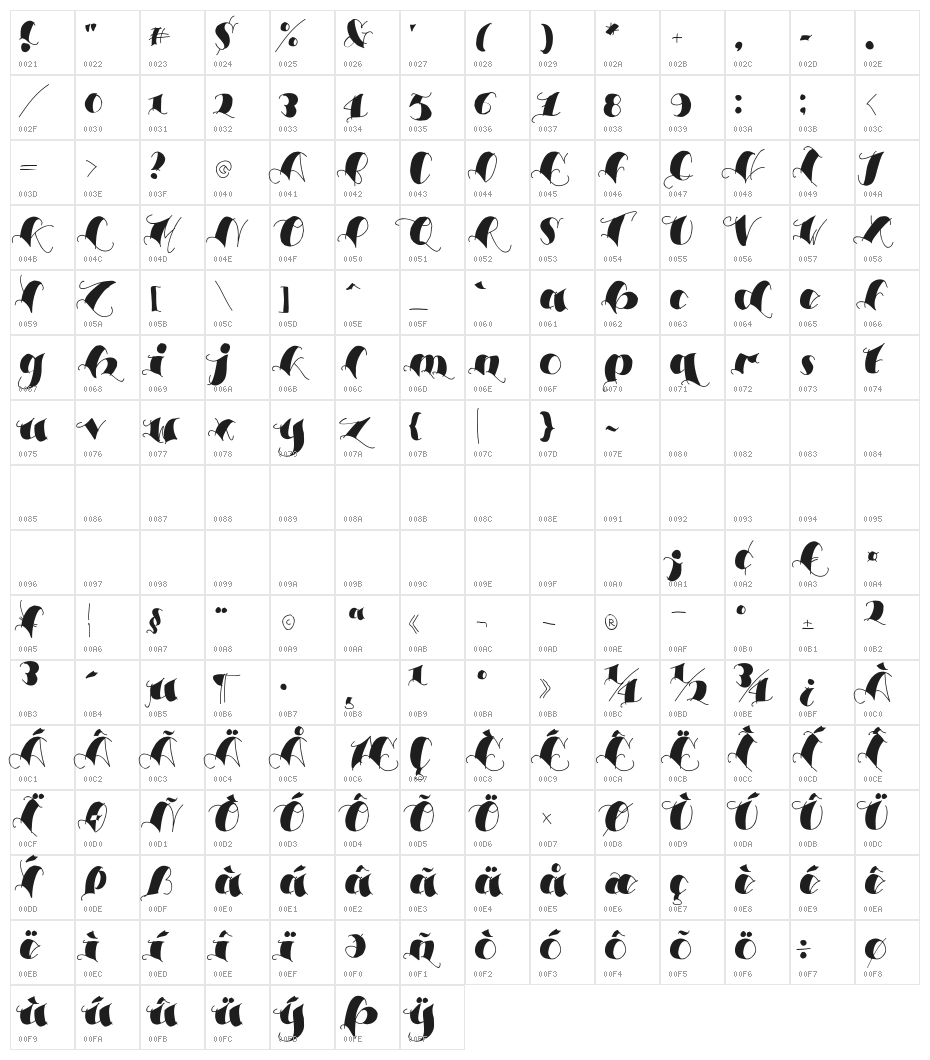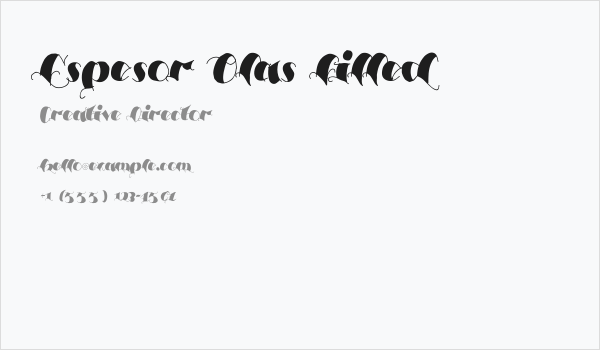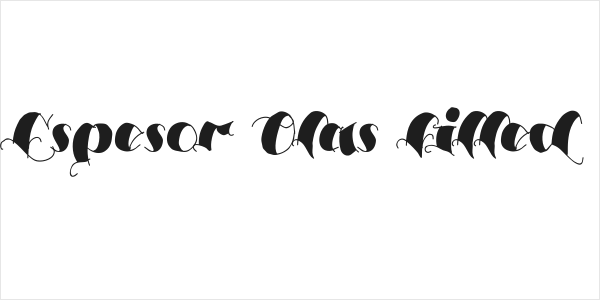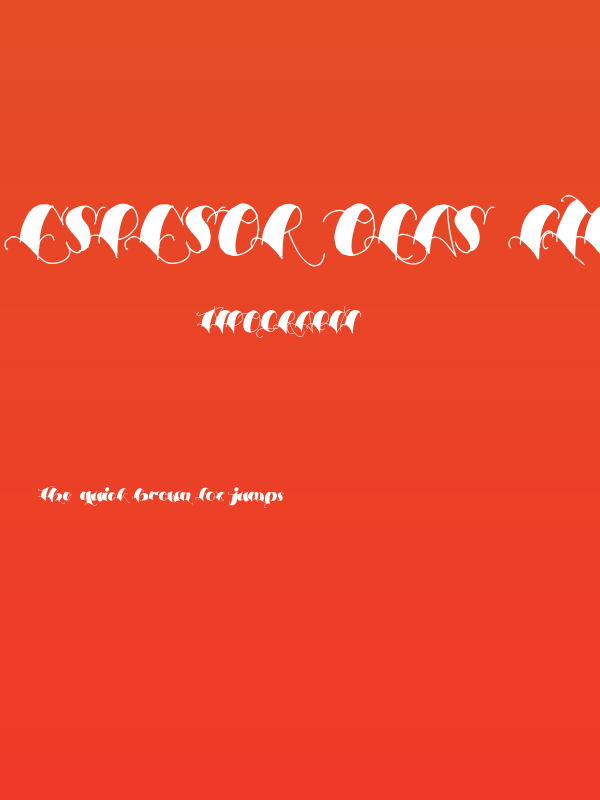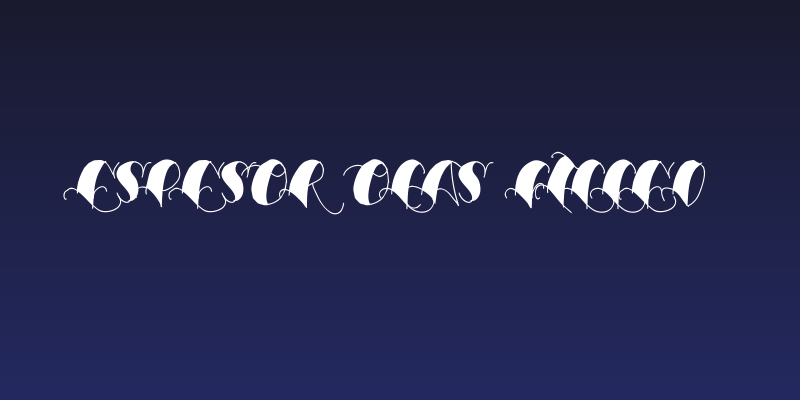
Espesor Olas Filled Font
Espesor Olas Filled Description
This font features a bold and expressive script style with dramatic flourishes and swashes. The characters are interconnected, creating a flowing and dynamic appearance. The strokes are thick and filled, giving a sense of weight and presence. The uppercase letters are particularly ornate, with intricate loops and curves that add a decorative flair. The lowercase letters maintain the same boldness, with a slightly more subdued design. Numbers and special characters follow the same stylistic approach, ensuring consistency across all elements. This font is ideal for projects that require a touch of elegance and sophistication.
| Proposed Projects | Ideal for wedding invitations, luxury branding, elegant posters, and artistic projects. |